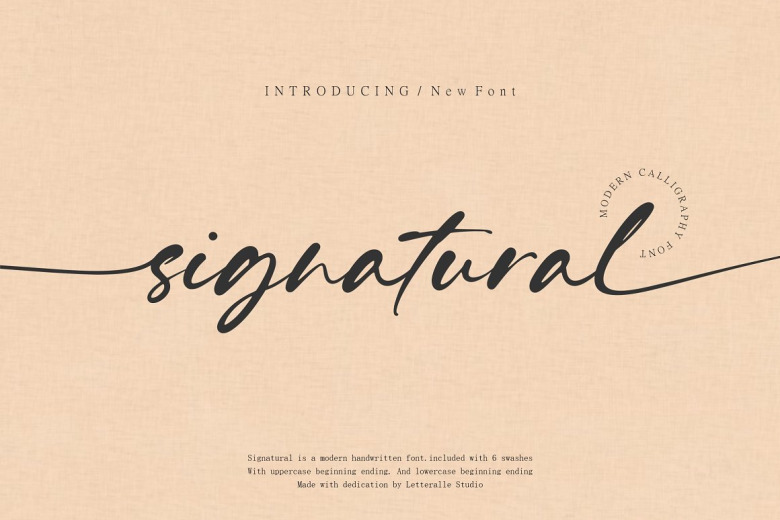
Signatural Font
Signatural is a great cursive signature script font. This font is an obvious allusion to its name, because it offers a handwritten, naturally smudgy quality of something “signed” by hand. Of course, natural-looking scuffs or blemishes just seem to bring warmth and intimacy for the user. It could be well worth a future investment. The font is a useful supplement to any handwritten or signature font you are using.
Signatural Script Font